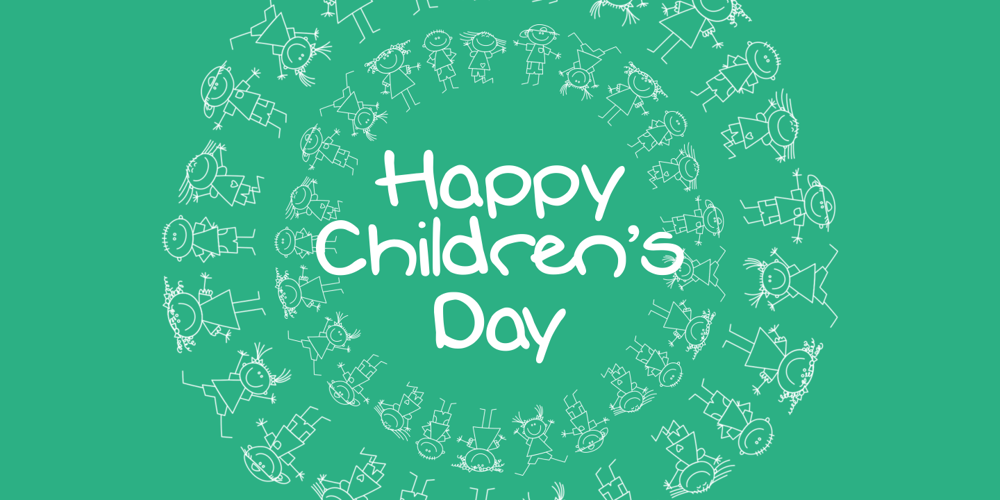
Kidplay
Kidplay font
Kidplay Font Family was designed by Ahmad Zulfikar Ali and published by ZetDesign. Kidplay contains 2 styles and family package options. Hey Guys! My new Font Kidplay is a funny and playful sans serif, perfect for child magazine cover, comic creations, branding projects, headlines, posters and packaging! Kidplay font has three styles allow unique and versatile design options! Furthermore it is a unicase font, so you can also play with uppercase and lowercase initials. But that’s not all! it is equipped with multilingual accents, so it can be used in several Latin languages. I hope you enjoy my creation. Thank you!